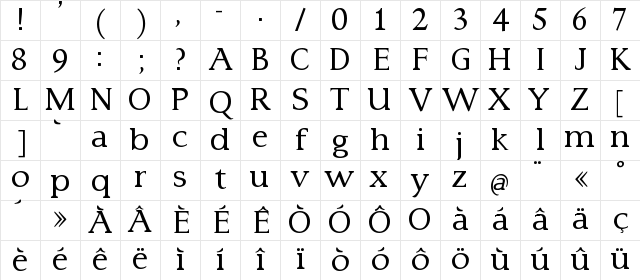
Typo3 Medium
Complete Typo3 Medium glyph index. Displaying only characters natively supported by Typo3 Medium font.
Design Context for Typo3
Typo3 is a composed and adaptable typeface that performs quietly and consistently across a wide range of design contexts.